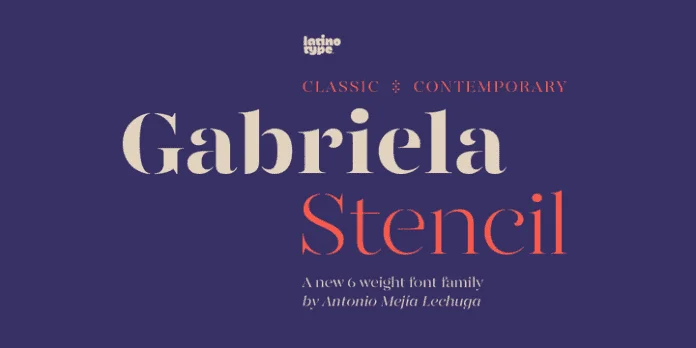
Gabriela Stencil Font Family is perfect for military-inspired branding, industrial packaging design, urban streetwear logos, stencil art projects, warehouse signage, tactical gear labeling, shipping container graphics, army surplus stores, vintage military themes, and authentic industrial advertising campaigns.
Gabriela Stencil Font Family is exciting because it combines feminine elegance with industrial strength through distinctive stencil letterforms that convey both grace and rugged durability with unique character. This innovatively designed typeface merges delicate feminine styling with bold stencil functionality, making it perfect for brands that want to communicate strong femininity, industrial chic, and authentic stencil craftsmanship that appeals to diverse audiences.
The Gabriela Stencil Font Family includes stencil weights with industrial-inspired character styling, featuring cut-out design elements and military decorative variations. The font showcases stencil design details, industrial-optimized proportions, and tactical character characteristics that create a comprehensive typographic system for industrial and military-themed brand applications.
The industrial sophistication of Gabriela Stencil Font Family makes it an invaluable tool for urban fashion brands, industrial companies, and tactical service providers that need typography capable of communicating stencil authenticity and industrial strength. The font's rugged character helps establish connections with audiences seeking authentic urban experiences, industrial quality, and tactical reliability that embodies genuine stencil craftsmanship and military precision.
Urban clothing brands, industrial manufacturers, and tactical gear companies consistently choose Gabriela Stencil Font Family for its ability to convey stencil authenticity and industrial sophistication through typography. The font excels in applications where establishing urban credibility and industrial appeal are essential to brand positioning, making it particularly effective for streetwear fashion, industrial products, and tactical brands targeting urban-conscious consumers.
This font's comprehensive character set includes stencil-styled letterforms, industrial numerals, tactical punctuation marks, and military symbols that support authentic stencil typography composition. The consistent rugged styling maintains the industrial stencil theme throughout all characters while ensuring professional readability across all urban and industrial design projects requiring Gabriela Stencil Font Family Free Download functionality.